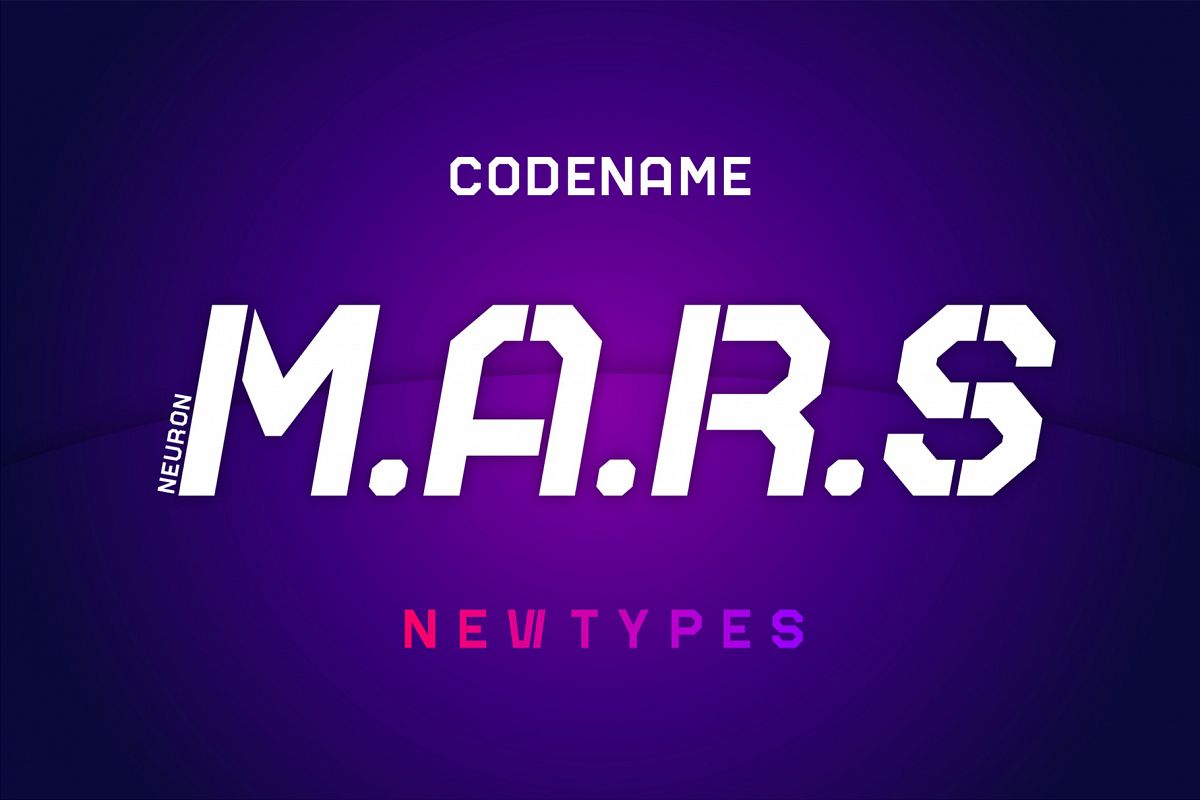
Mars NT
Mars
Mars New Types is a display font by Neuron. It was specially designed for display purpose, such as poster, headline, title, magazine, and any creative project you work with. To add more versatility, I made Mars with 4 families; regular, italic, outline regular and outline italic. Mars base form is stencil, the regular one you can use lower case. Do not hesitate to ask any question.
Mars New Types
4 families (regular, italic, outline regular and outline italic)